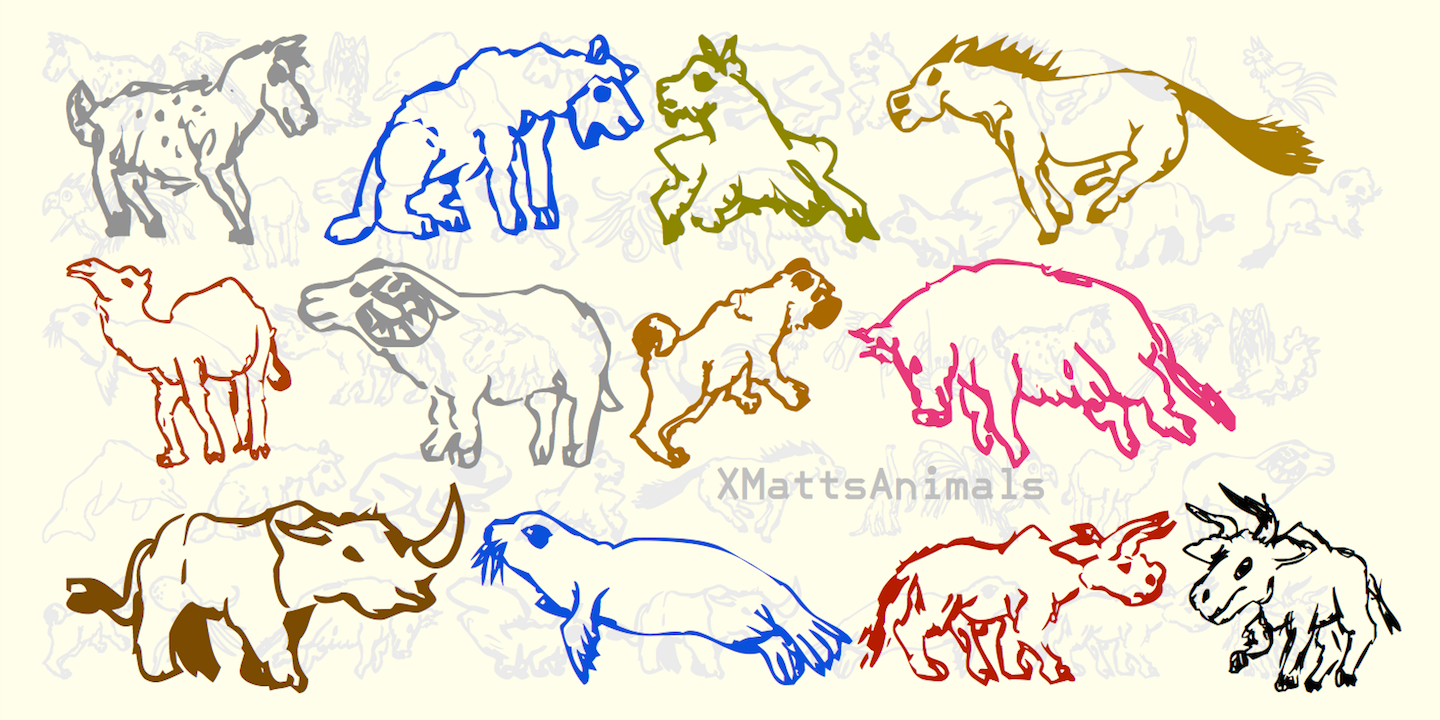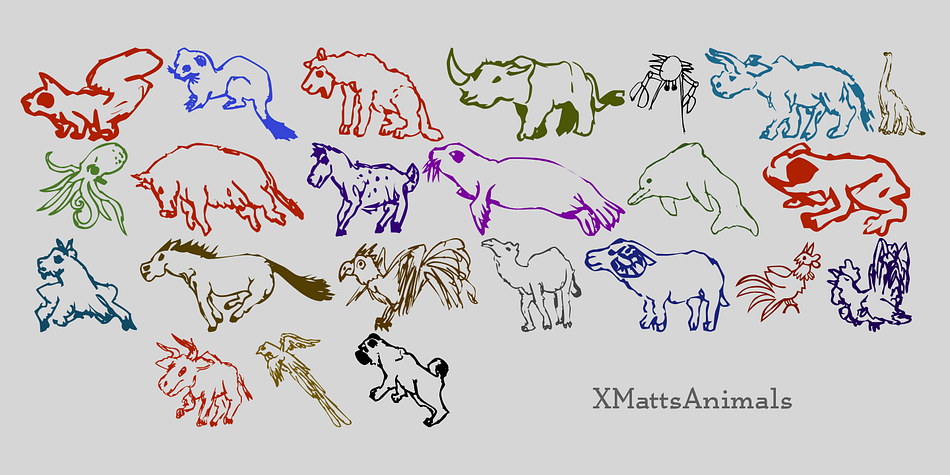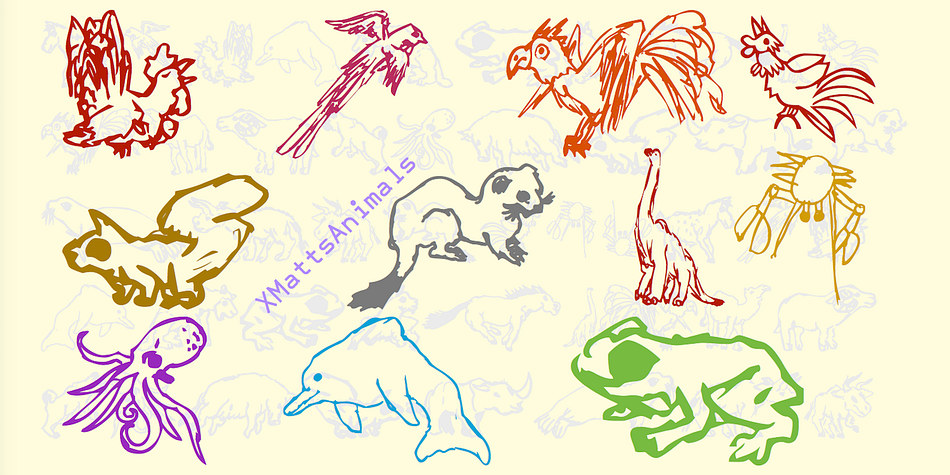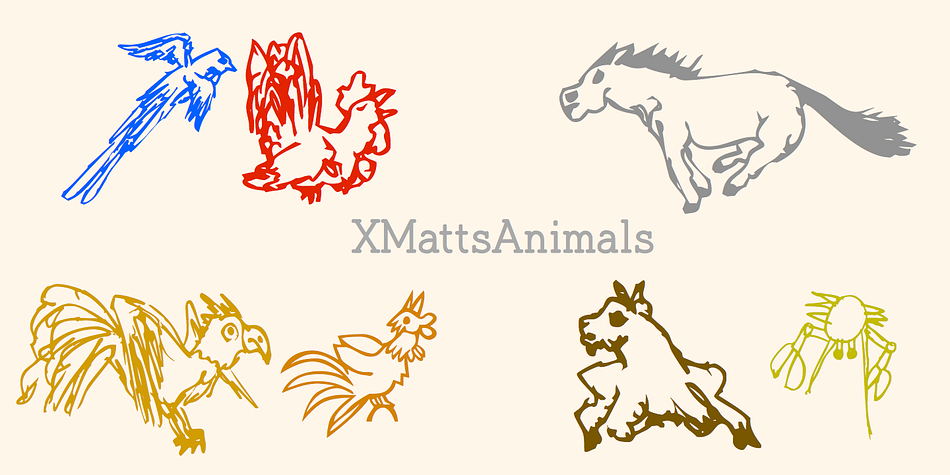
XMattsAnimals
Designed by Robert Schenk and Matthew Schenk, XMattsAnimals is a dingbat font published by Ingrimayne Type.
Most of the letter keys are from animal drawings done by a six or eight year old child who has now grown up.